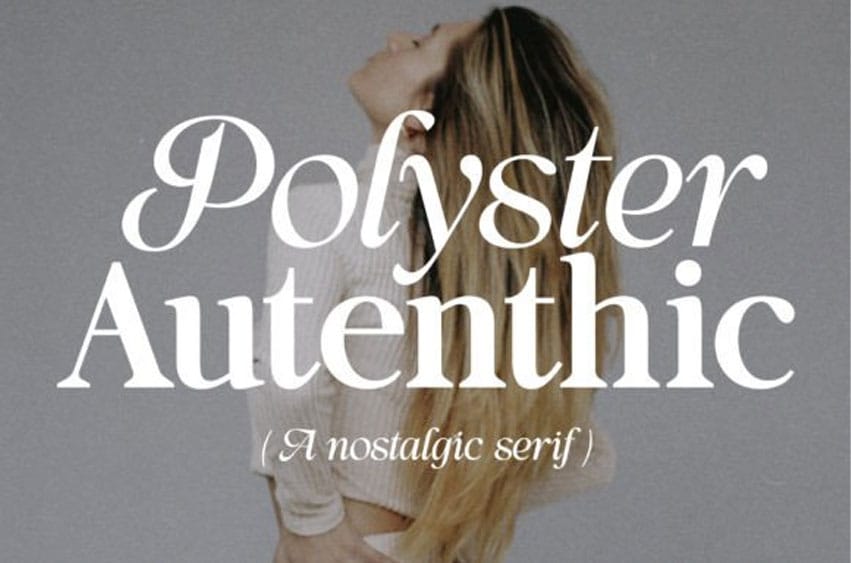
Polyster Authentic Duo Font is a sophisticated, charming serif font with a fashionable touch paired with an elegant script font.
Specially designed for luxury, elegant, feminine projects, this font is perfectly suitable for creating modern, chic designs.